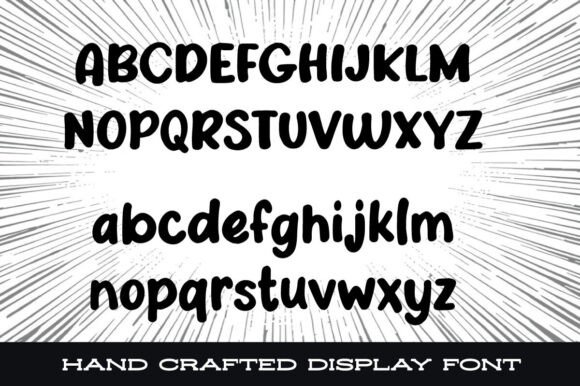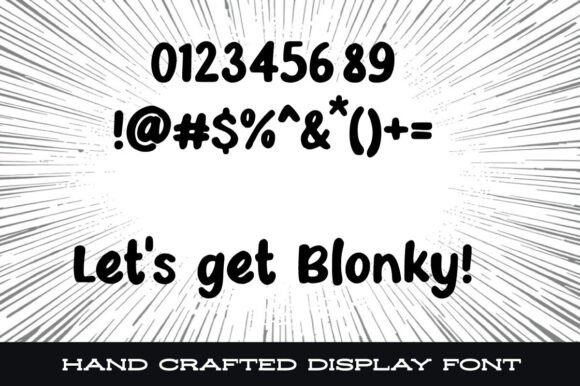
Introducing Blonky Font: The Ultimate Choice for Whimsical Designs
Are you tired of using the same old fonts in your designs? Do you want to add a touch of personality and whimsy to your projects? Look no further than Blonky Font, a delightfully wobbly, fun-loving hand-drawn cartoon font that’s bursting with charm. In this article, we’ll dive into the world of Blonky Font and explore its unique features, uses, and benefits for designers and crafters.
The Charm of Blonky Font
Blonky Font is a one-of-a-kind, hand-drawn font that’s sure to capture the hearts of designers and crafters alike. Its playful, bouncy letterforms have a slightly wonky charm that’s impossible to resist. Each letter is carefully crafted to bring a sense of energy and movement to your designs, making it perfect for projects that need a touch of whimsy and humor.
Perfect for Whimsical Designs
Blonky Font is ideal for designs that require a lighthearted and carefree feel. Whether you’re creating a children’s book cover, a quirky brand identity, or a playful poster, Blonky Font delivers an energetic and playful vibe that’s sure to engage your audience. Its cartoonish appeal and hand-drawn imperfections make it a great choice for designers who want to add a personal touch to their work.
Key Features of Blonky Font
• Hand-drawn letterforms: Each letter is carefully crafted to bring a sense of personality and whimsy to your designs.
• Wobbly and playful: Blonky Font’s letterforms have a delightful wobble that’s sure to add a touch of humor to your designs.
• Cartoonish appeal: Blonky Font’s cartoonish style makes it perfect for designs that require a playful and lighthearted feel.
• Imperfect and charming: Blonky Font’s hand-drawn imperfections add to its charm, making it a great choice for designers who want to add a personal touch to their work.
Uses for Blonky Font
Blonky Font is a versatile font that can be used in a variety of design projects, including:
• Children’s book covers: Blonky Font’s playful and whimsical style makes it perfect for children’s book covers.
• Quirky brand identities: Blonky Font’s unique charm makes it a great choice for brands that want to stand out from the crowd.
• Playful posters: Blonky Font’s energetic and carefree feel makes it perfect for posters that require a playful touch.
• Crafting and DIY projects: Blonky Font’s whimsical style makes it a great choice for crafting and DIY projects, such as handmade cards and gift tags.
Tips for Using Blonky Font
Here are a few tips for using Blonky Font in your designs:
• Use it sparingly: Blonky Font’s playful style can be overwhelming if used excessively. Use it sparingly to add a touch of whimsy to your designs.
• Pair it with contrasting fonts: Pair Blonky Font with contrasting fonts to create visual interest and add depth to your designs.
• Experiment with colors: Blonky Font’s playful style lends itself well to bright and bold colors. Experiment with different colors to find the perfect combination for your design.
Blonky Font is a unique and charming font that’s perfect for designers and crafters who want to add a touch of whimsy and humor to their projects. Its playful, bouncy letterforms and hand-drawn imperfections make it a great choice for designs that require a lighthearted and carefree feel. Whether you’re creating a children’s book cover, a quirky brand identity, or a playful poster, Blonky Font is sure to bring a smile to your audience’s face. So why not give Blonky Font a try and see how it can add a touch of personality to your designs?